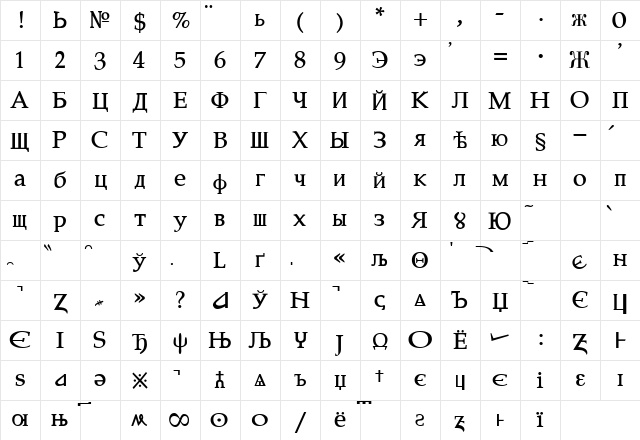
Constantin Regular
Design Context for Constantin Typeface
Constantin offers clean, dependable letterforms without strong stylistic allegiance, making it a practical choice for designers who need flexibility.